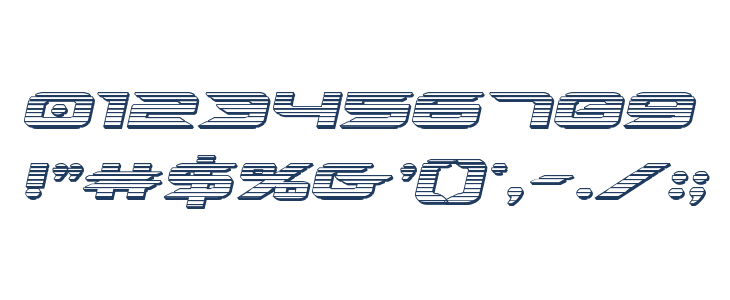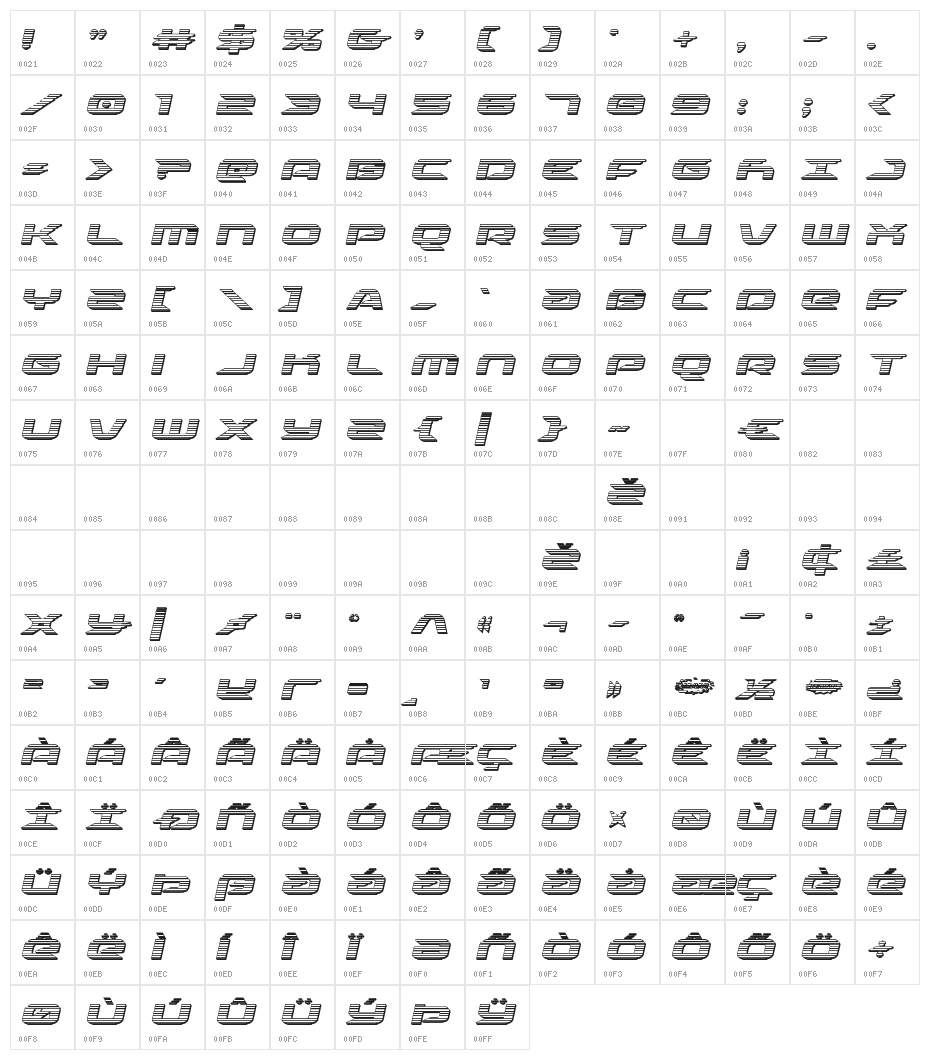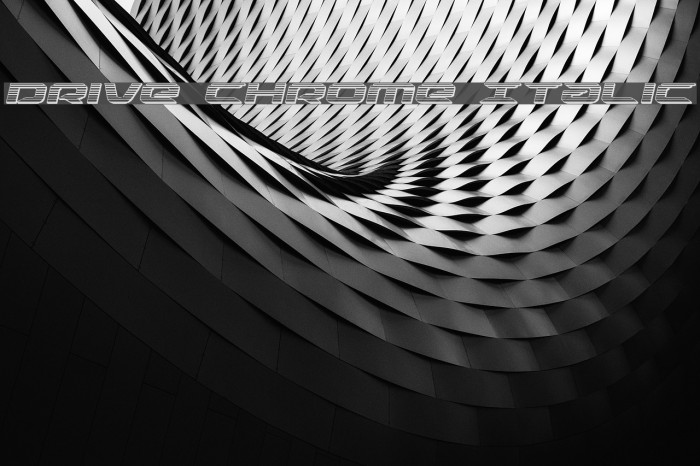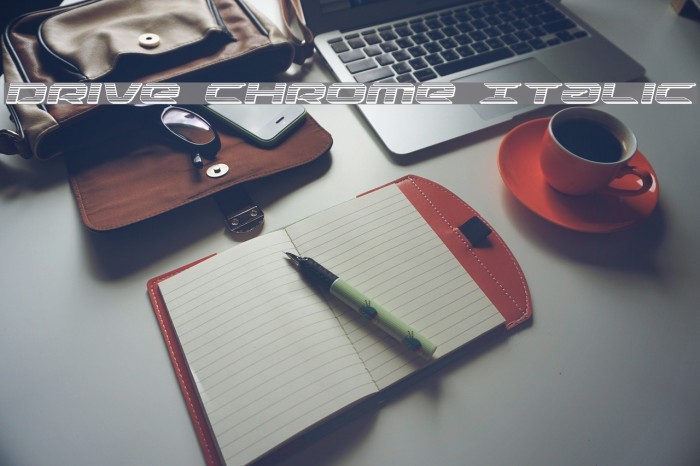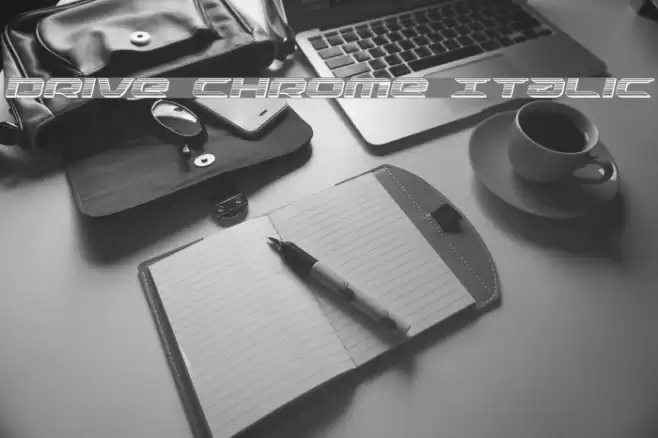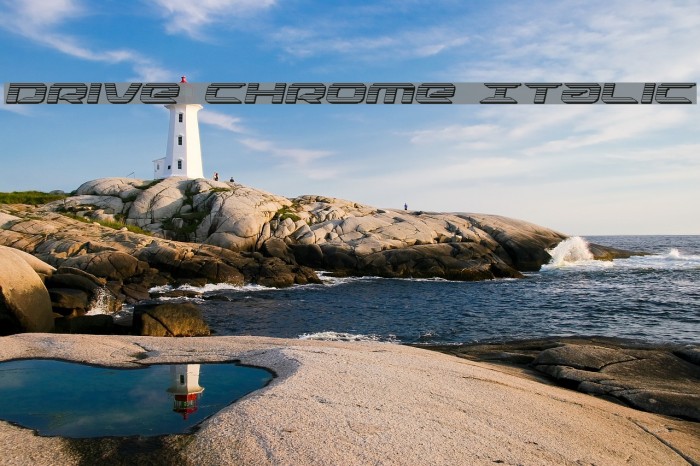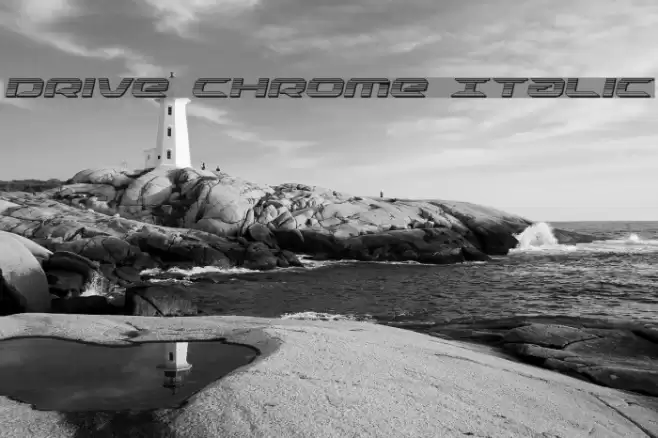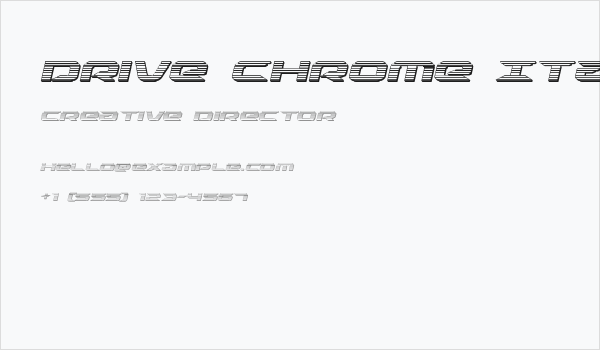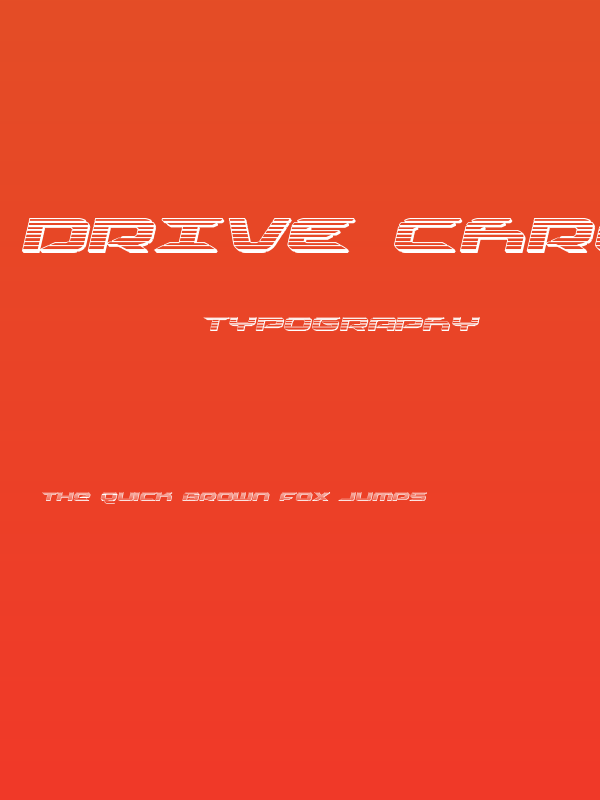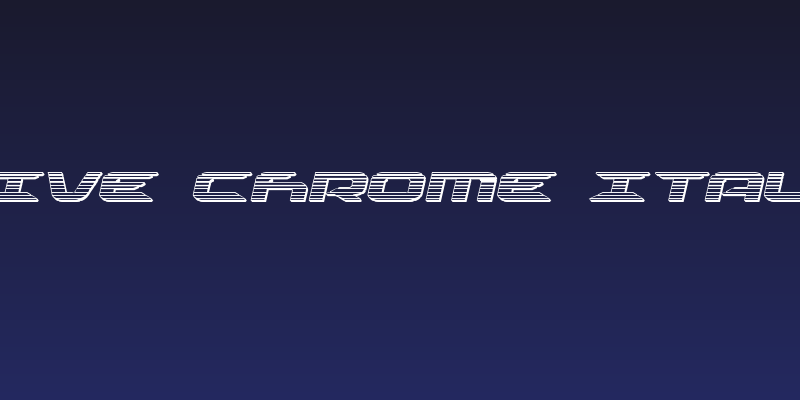
Drive Chrome Italic Font
Drive Chrome Italic Description
This font features a futuristic and dynamic design with a distinct italic slant, giving it a sense of motion and speed. The characters are constructed with multiple parallel lines, creating a layered and dimensional effect. The uppercase and lowercase letters maintain a consistent style, with sharp angles and geometric shapes. The numerals and special characters follow the same design principles, ensuring uniformity across the typeface. This font's unique structure makes it stand out, ideal for projects that require a modern and edgy aesthetic.
| Proposed Projects | Ideal for sci-fi themed designs, automotive branding, tech company logos, and video game titles. |